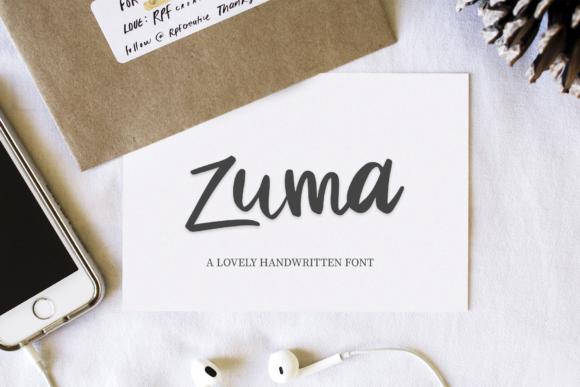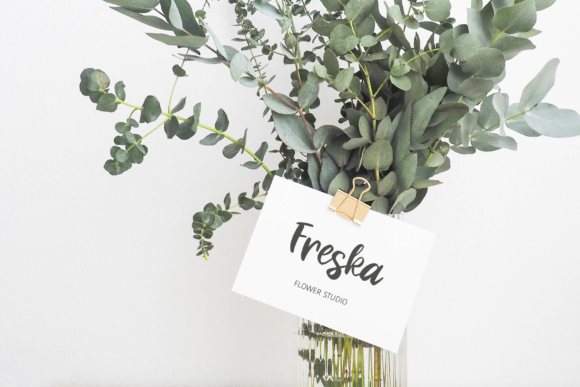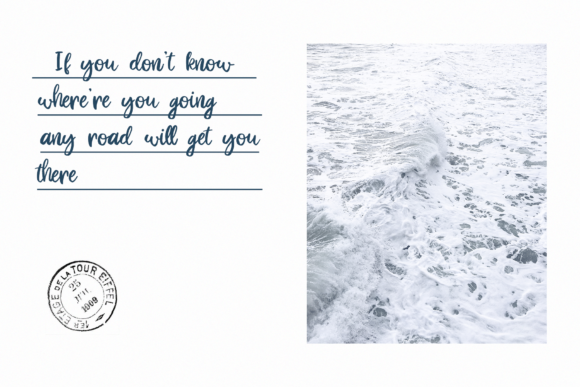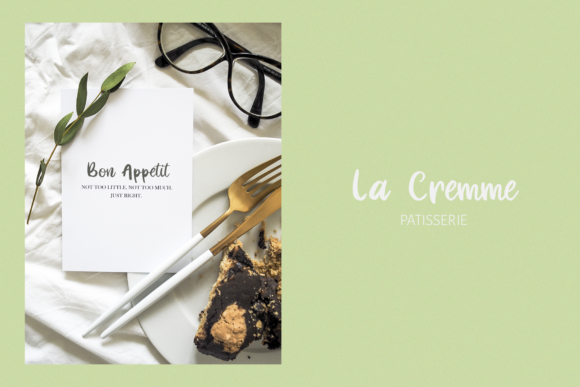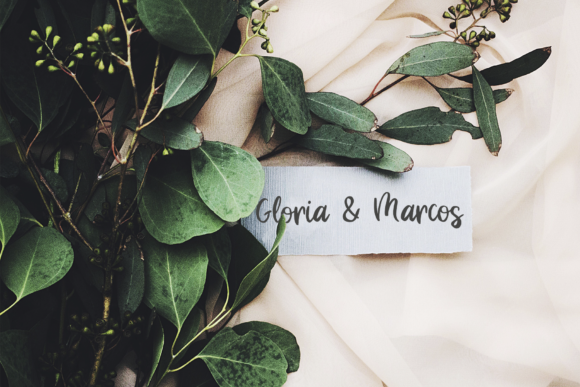
HomeScript FontsZuma Font Script Fonts Zuma Font FacebookXPinterestWhatsApp Zuma Font Poster 2 Zuma Font Poster 3 Zuma Font Poster 4 Zuma Font Poster 5 About Zuma Font The Zuma is a handwritten font with smooth letters which gives it a realistic and natural feel. DOWNLOAD ON CREATIVE FABRICAThis font is sold and delivered by Creative Fabrica. Font Canyon may earn a commission if you buy through this link. People also explored Vintage Old Candles | Poster Mockup Crungebright Font Velourist Deflexure Font White Rabbit Font Mireille Cutyle Script Font Flawlessly Font Qamari Script Font 378 0 TagsZuma Font Previous articleThe Wallstreet FontNext articleCremme Font LEAVE A REPLY Cancel reply Comment: Please enter your comment! Name:* Please enter your name here Email:* You have entered an incorrect email address! Please enter your email address here Website: Save my name, email, and website in this browser for the next time I comment. Personal Use Free Stereofidelic Personal Use Free Read more about this font Starting Live Personal Use Free Read more about this font Unicorn Kids Personal Use Free Read more about this font Wadjet Personal Use Free Read more about this font BLOG Top 7 Google Fonts Alternatives for Faster and Privacy-Friendly Web Design (2025) Top 7 Google Fonts Alternatives for Faster and Privacy-Friendly Web Design (2025) When it comes to web typography, Google Fonts has long been the go-to... Transform Your Website: Elevate Your Typography with 7 Best Web Font Generators Modern Sans-Serif Fonts That Brands Love in 2025 Free Fonts Risk: Why Free Fonts Can Be Dangerous for Designers